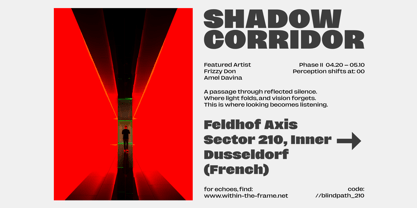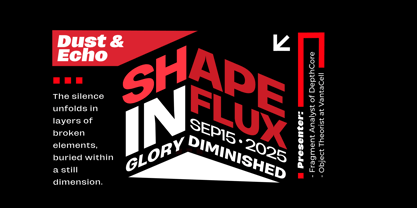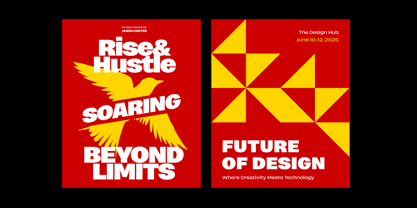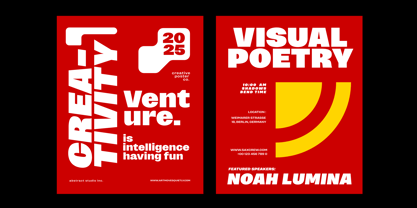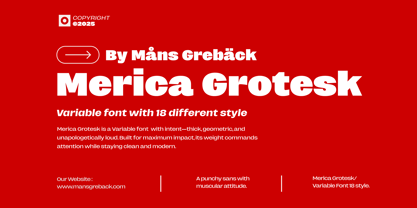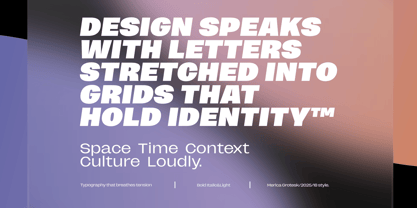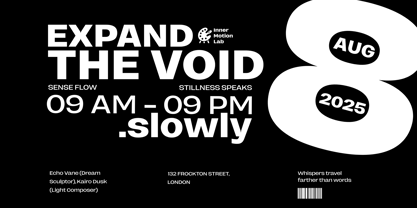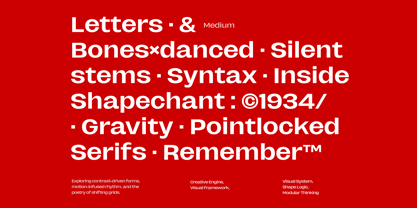
Merica Grotesk
by Mans Greback
The Merica Grotesk Font Family was designed by Måns Grebäck and published by Mans Greback. Merica Grotesk contains 18 styles and family package options. More about this family
Merica Grotesk is a muscular sans-serif with an unapologetic presence. Its bold, geometric construction speaks with confidence, designed to command attention without losing its modern sharpness. The thick, even weight makes it ideal for impactful headlines, branding, and messages that must be seen as much as read. It balances brute strength with clarity—its clean lines and proportional design mean that even at its heaviest, the text remains readable and aesthetically precise. In lighter weights, it carries a restrained elegance, allowing the design to adapt between assertive and understated tones. The font is built with advanced functionality and guaranteed top-notch quality, containing stylistic and contextual alternates, ligatures and more automatic and manual features; all to give you full control and customizability. It has extensive lingual support, covering all Latin-based languages, from North Europa to South Africa, from America to South-East Asia. It contains all characters and symbols you'll ever need, including all punctuation and numbers. Designed by Mans Greback, Merica Grotesk captures the essence of purposeful design—clean, bold, and unwaveringly direct.
Designers: Måns Grebäck
Foundry: Mans Greback
Merica Grotesk